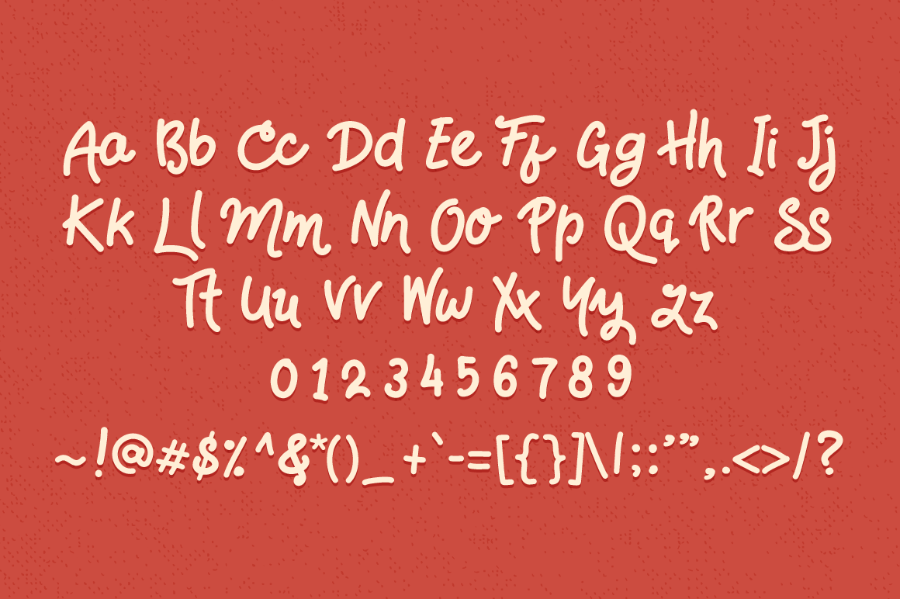
Hands Down Font
Today’s free font packages are a handwriting, It was made carefully, and it was designed on the iPad. Introducing Hands Down. It is designed and shared by weirdstore. It’s so simple, it even has no alternates or ligatures. But already support for multilanguage characters. Just try it, you’ll love it 😉 It’s awesome for packaging, merchandise, posters, invitations, sign making, magazines, creative websites…